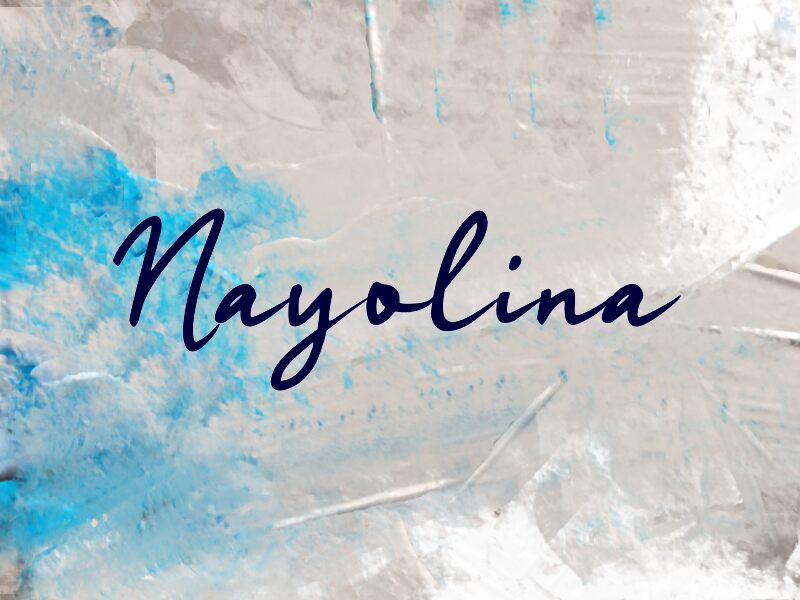
Nayolina font is a stylish and fluid handwritten typeface designed by wep, available as a free font. It carries a personable charm with its elegant and expressive design. Modern yet casual, this script offers an inviting and handcrafted feel, combining sleek lines with artistic curves.
This font is perfect for branding projects, advertisements, logos, stationery, product packaging, or any project seeking an elegant touch. Use it in book covers, social media, magazine layouts, photography, watermark, invitations, or posters to make your content stand out with a unique flair.
Nayolina is a stunning free font that brings a touch of elegance to your designs. With its unique style and versatile uses, this font is perfect for a variety of projects, from invitations to branding materials.